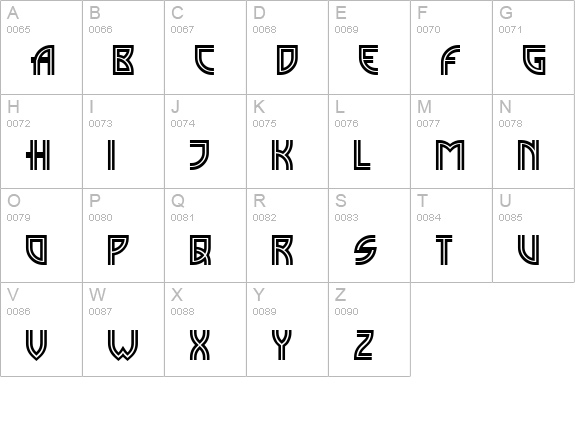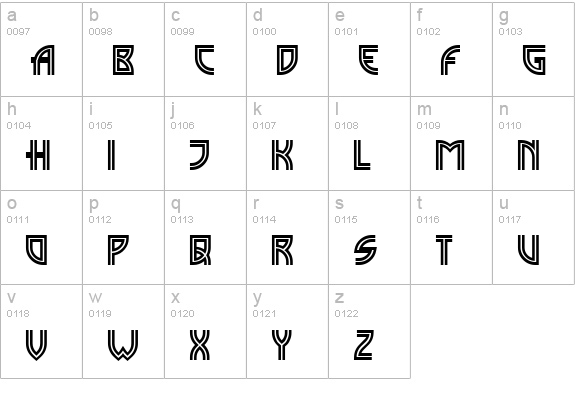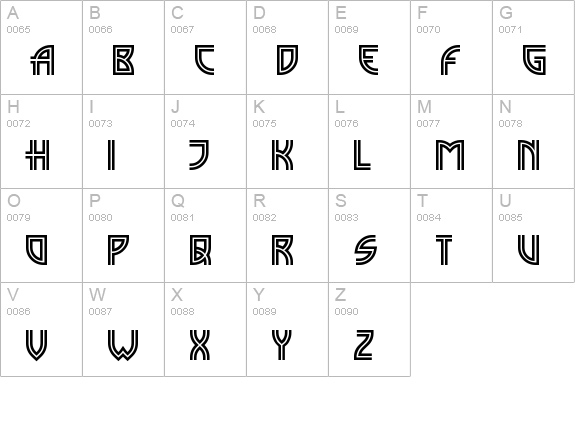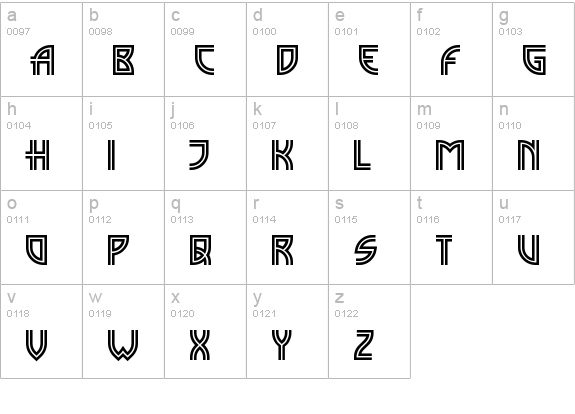
MadisonSquare Incised Font Details
MadisonSquare Incised is a captivating and versatile font that exudes a sense of timeless elegance and sophistication. Its strong and confident letterforms are meticulously crafted, making it a perfect choice for adding a touch of class to any design project. Inspired by the iconic Madison Square in New York City, this font captures the essence of the architectural beauty and grandeur that surrounds it. The incised style adds a unique dimension to the letterforms, creating a visually striking effect that captures attention effortlessly. With its clean lines and sharp edges, MadisonSquare Incised is incredibly legible, making it suitable for a wide range of applications. Whether you're designing a logo, creating eye-catching headlines, or crafting stylish invitations, this font will make your text stand out with its distinct character and charm. One of the best things about MadisonSquare Incised is that it is freely available to download at FontsMarket.com. This means that you can easily access this stunning font and incorporate it into your projects without any hassle or cost. With just a few clicks, you can elevate your designs and give them a sophisticated and polished look. So why wait? Download MadisonSquare Incised today from FontsMarket.com and unleash your creativity with this incredible font. Whether you're a professional designer or an enthusiastic hobbyist, this font is sure to become an invaluable asset in your design toolbox. Give your projects that extra touch of elegance and make a lasting impression with MadisonSquare Incised.